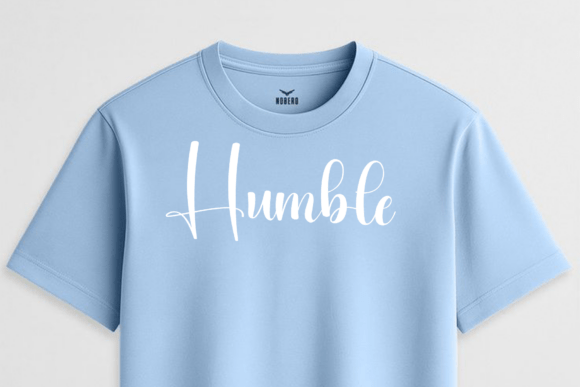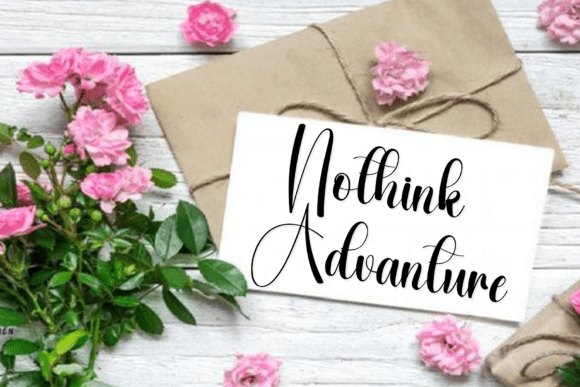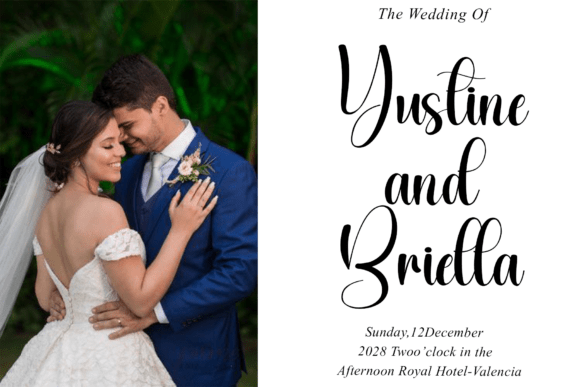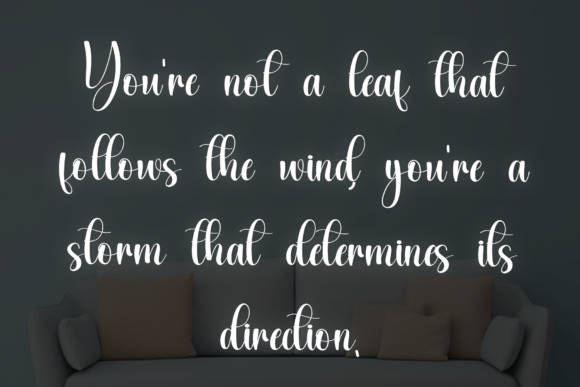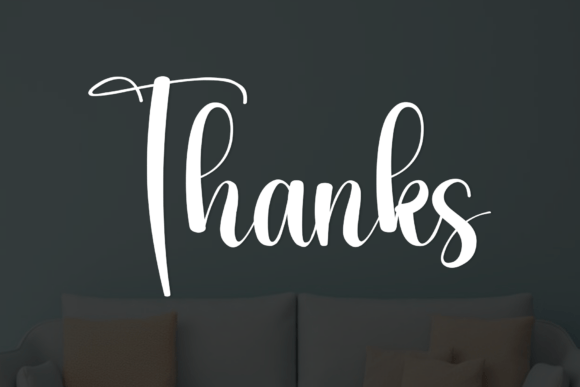
Introducing Chunky Font: The Epitome of Elegance and Sophistication
In the world of typography, fonts play a crucial role in conveying the tone and personality of a brand, product, or service. For designers and crafters seeking to add a touch of luxury and sophistication to their projects, Chunky Font is an exceptional choice. This beautifully flowing and elegant modern handwritten script font is designed to elevate your designs with its smooth, generous curves and graceful, elongated strokes.
The Characteristics of Chunky Font
Chunky Font boasts a unique and professional typeface that is perfect for various design applications. Its key features include:
- Smooth, generous curves: The font’s curves are meticulously crafted to provide a sense of fluidity and movement, making it ideal for designs that require a dynamic and elegant feel.
- Graceful, elongated strokes: The elongated strokes of Chunky Font add a level of sophistication and refinement, making it perfect for luxury branding, high-end products, and premium services.
- Handwritten script style: The font’s handwritten script style gives it a personal and authentic touch, making it suitable for designs that require a human and approachable feel.
Use Cases for Chunky Font
Chunky Font is a versatile typeface that can be used in a variety of design projects, including:
- Personal branding: Establish a strong and sophisticated brand identity with Chunky Font, perfect for entrepreneurs, freelancers, and small business owners.
- Photography watermarks: Add a touch of elegance to your photography watermarks and protect your images with a stylish and professional font.
- Luxury wedding stationery: Make your wedding stationery stand out with Chunky Font’s sophisticated and refined look, perfect for high-end wedding designs.
- Editorial design: Elevate your editorial designs, such as magazines, blogs, and newspapers, with Chunky Font’s elegant and refined typeface.
- Any project requiring a luxurious touch: From packaging design to advertising, Chunky Font is perfect for any project that requires a sophisticated and high-end feel.
Why Choose Chunky Font?
With so many fonts available, why choose Chunky Font? Here are a few reasons why designers and crafters love this exceptional typeface:
- Unique and professional: Chunky Font stands out from the crowd with its distinctive and professional typeface, making it perfect for designers seeking to create unique and memorable designs.
- Elegant and sophisticated: The font’s elegant and sophisticated look makes it ideal for high-end designs and luxury branding.
- Easy to read: Despite its elegant and refined look, Chunky Font remains easy to read, making it perfect for body text and headlines.
Tips for Using Chunky Font Effectively
To get the most out of Chunky Font, here are a few tips to keep in mind:
- Pair with contrasting fonts: Pair Chunky Font with contrasting fonts to create visual interest and hierarchy in your designs.
- Use for headlines and titles: Take advantage of Chunky Font’s elegant and refined look by using it for headlines and titles.
- Experiment with colors and textures: Add an extra layer of sophistication to your designs by experimenting with different colors and textures.
In conclusion, Chunky Font is an exceptional typeface that offers a unique blend of elegance, sophistication, and refinement. With its smooth, generous curves and graceful, elongated strokes, this beautifully flowing and elegant modern handwritten script font is perfect for designers and crafters seeking to add a touch of luxury to their projects. Whether you’re working on personal branding, photography watermarks, luxury wedding stationery, or editorial design, Chunky Font is an excellent choice.